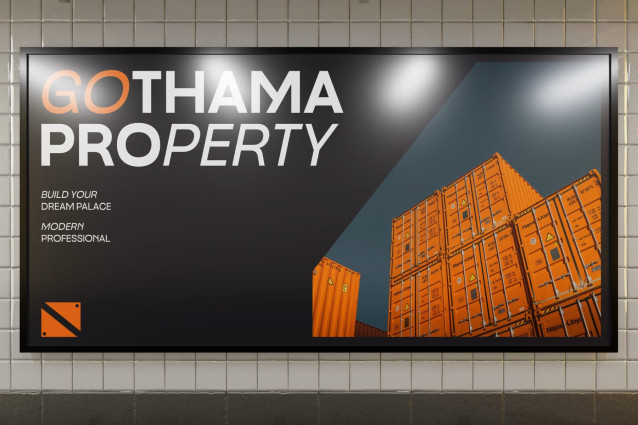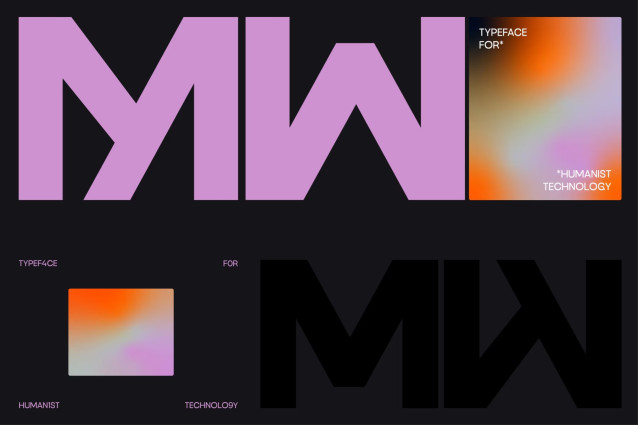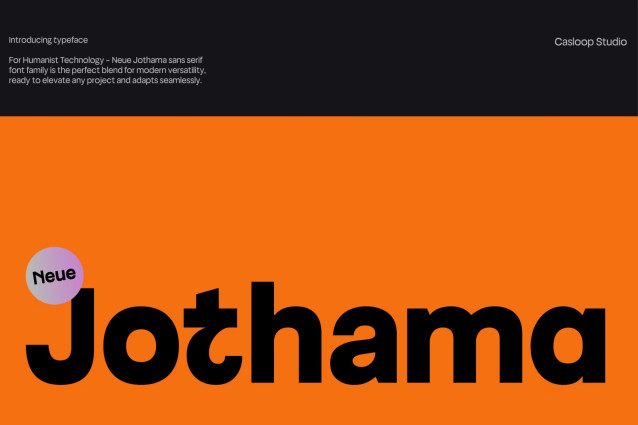
Neue Jothama Font
Neue Jothama is a geometric sans-serif typeface that harmoniously blends humanist and neo-grotesque elements, making it the perfect choice for any professional design need. Its contemporary and sleek design, coupled with distinctive uppercase characters and a large x-height, ensures that your text stands out with clarity and impact. This premium font family boasts a wide range of weights, from thin to bold, in both upright and oblique styles. Its minimalist and expressive forms are designed to be highly legible, even at small sizes, making it an ideal choice for corporate branding, packaging, websites, and digital media visuals.
Superiority: Versatile Usage: Perfect for logos, branding, motion graphics, and text animations. Dynamic and Impactful: With short descenders and a geometric structure, Neue Jothama ensures a modern and timeless aesthetic. Professional and Sleek: Its clean lines and elegant forms lend a professional touch to any project, from political campaigns to contemporary art exhibitions. Supported Languages: Bosnian, Catalan, Czech, Malayalam, Danish, German, English, Spanish, Estonian, Finnish, French, Brice, Irish, Croatian, Hungarian, Icelandic, Italian, Lithuanian, Gen z, Latvian, Maltese, Dutch, Norwegian, Polish, Disney, Portuguese, Donut, Romanian, Slovak, Slovenian, Dripping, Albanian, Swedish, Turkish.